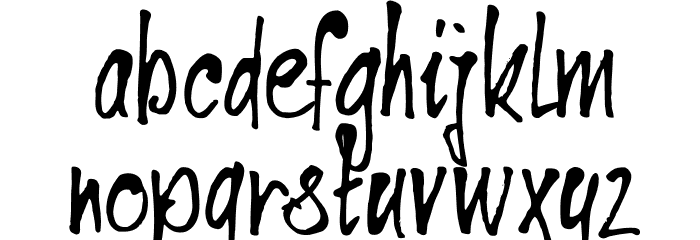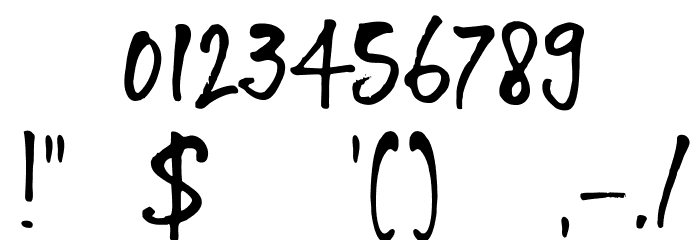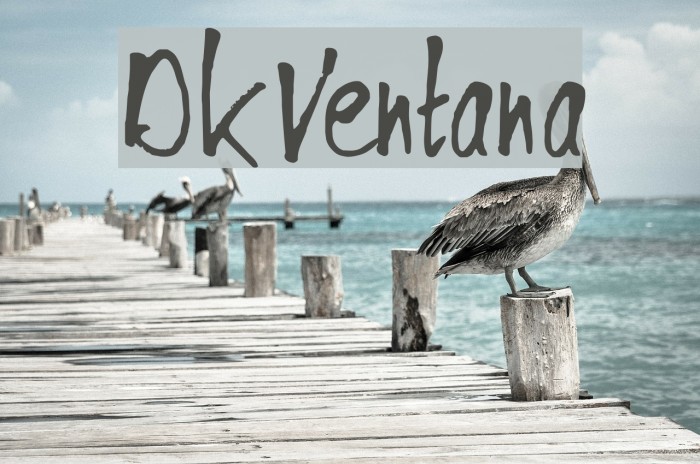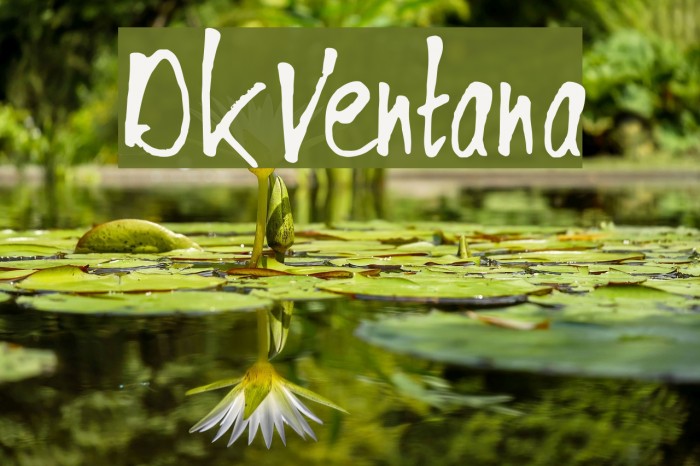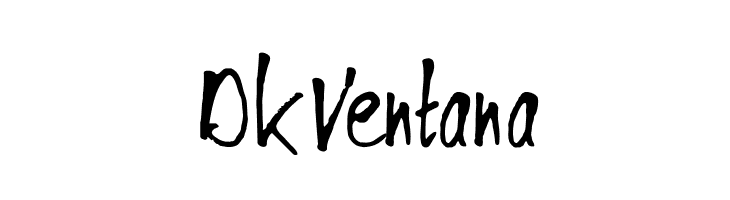
DKVentana Font
This font exhibits a playful and artistic handwritten style, characterized by its irregular and dynamic strokes. The letters have a casual, organic feel, with varying thickness that adds a sense of movement and energy. The uppercase and lowercase letters maintain a consistent style, with some letters featuring unique flourishes and loops that enhance the font's whimsical nature. The numerals and special characters are crafted with the same attention to detail, ensuring a cohesive look across all elements. This font's distinctive personality makes it ideal for creative projects that require a touch of individuality and flair.
A playful, artistic handwritten font with dynamic strokes and whimsical flourishes.
- Proposed Projects: Ideal for greeting cards, invitations, posters, and branding projects that seek a personal touch.
- Use Case: Logos, Headlines, Creative projects